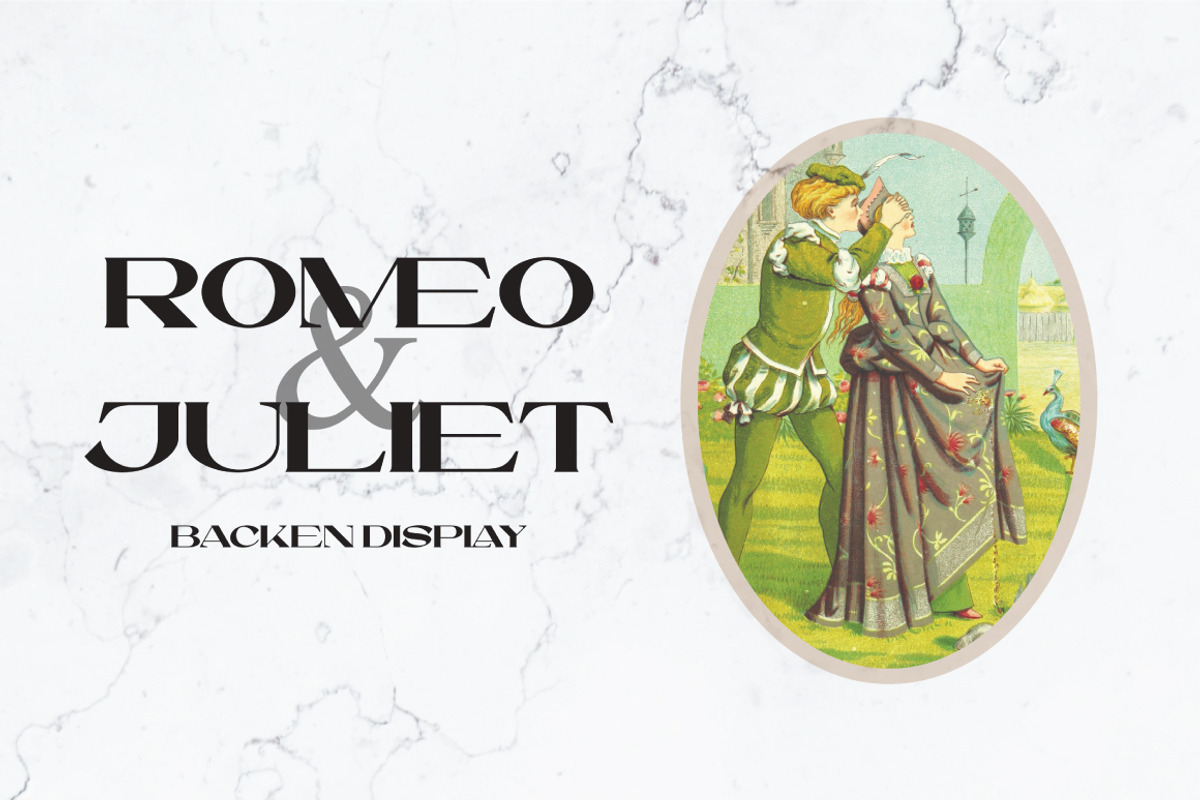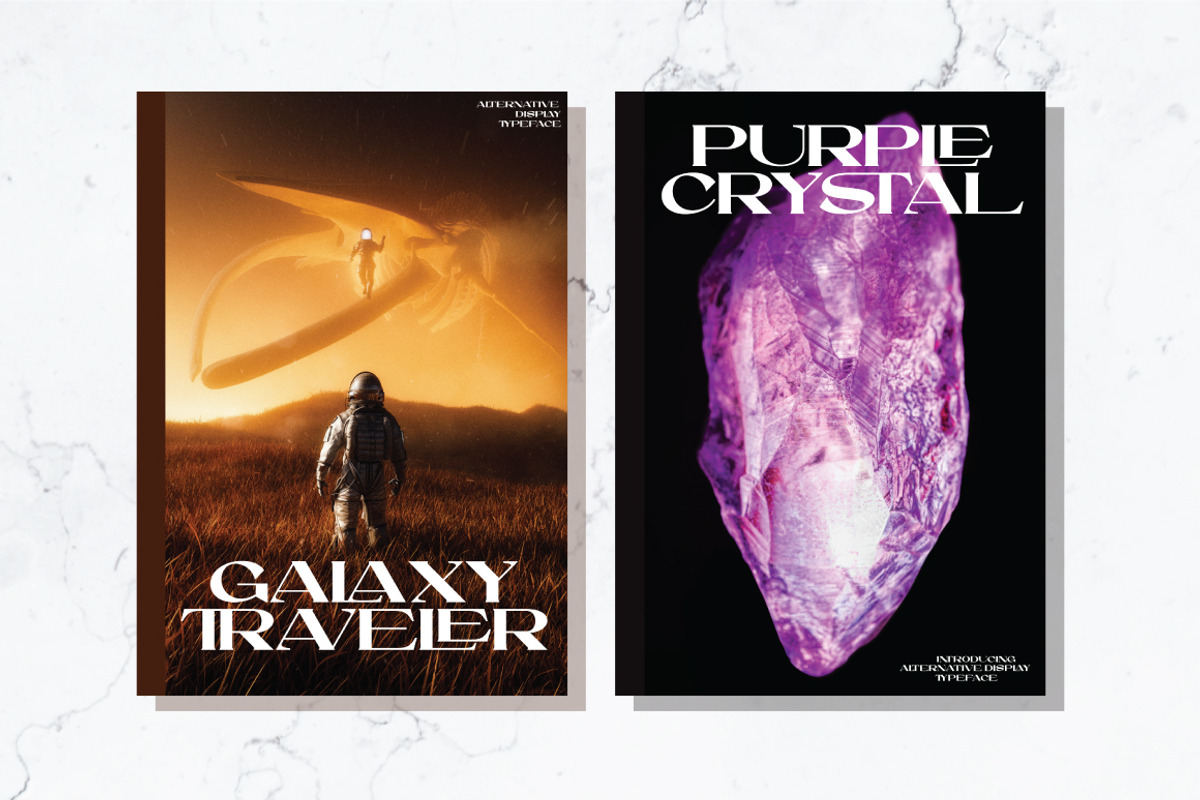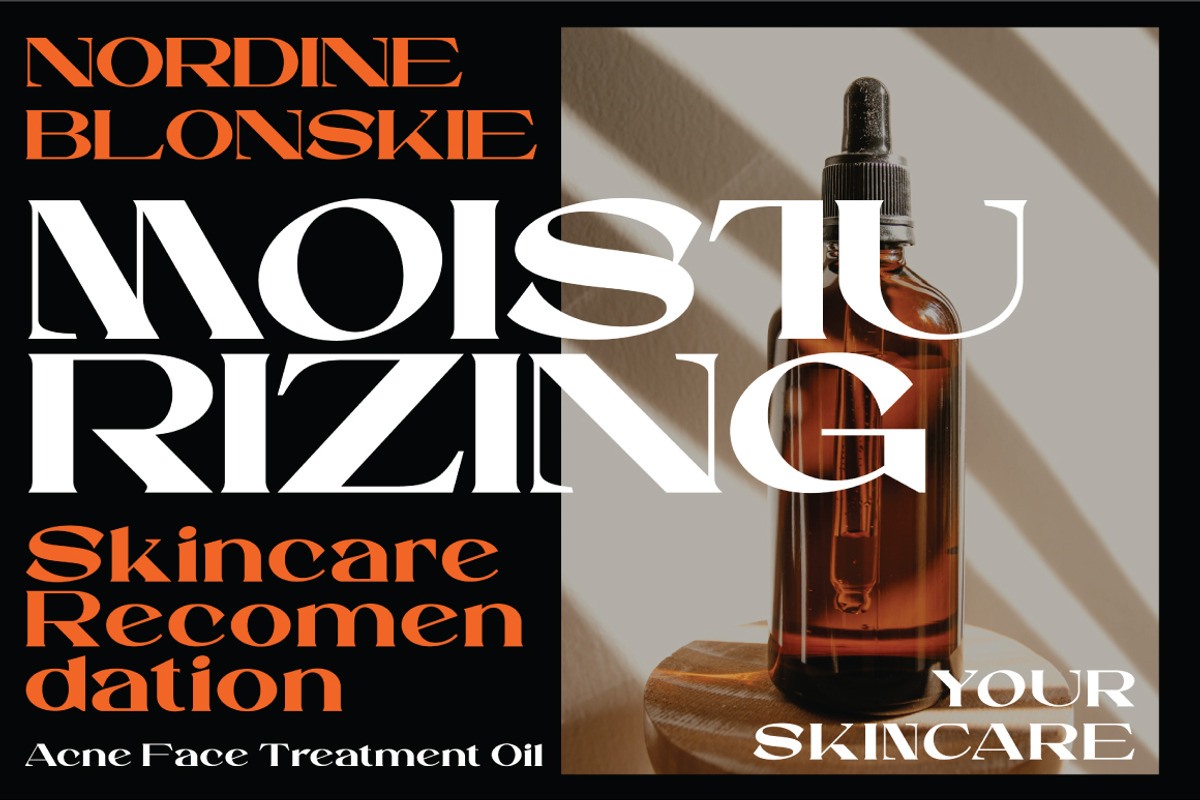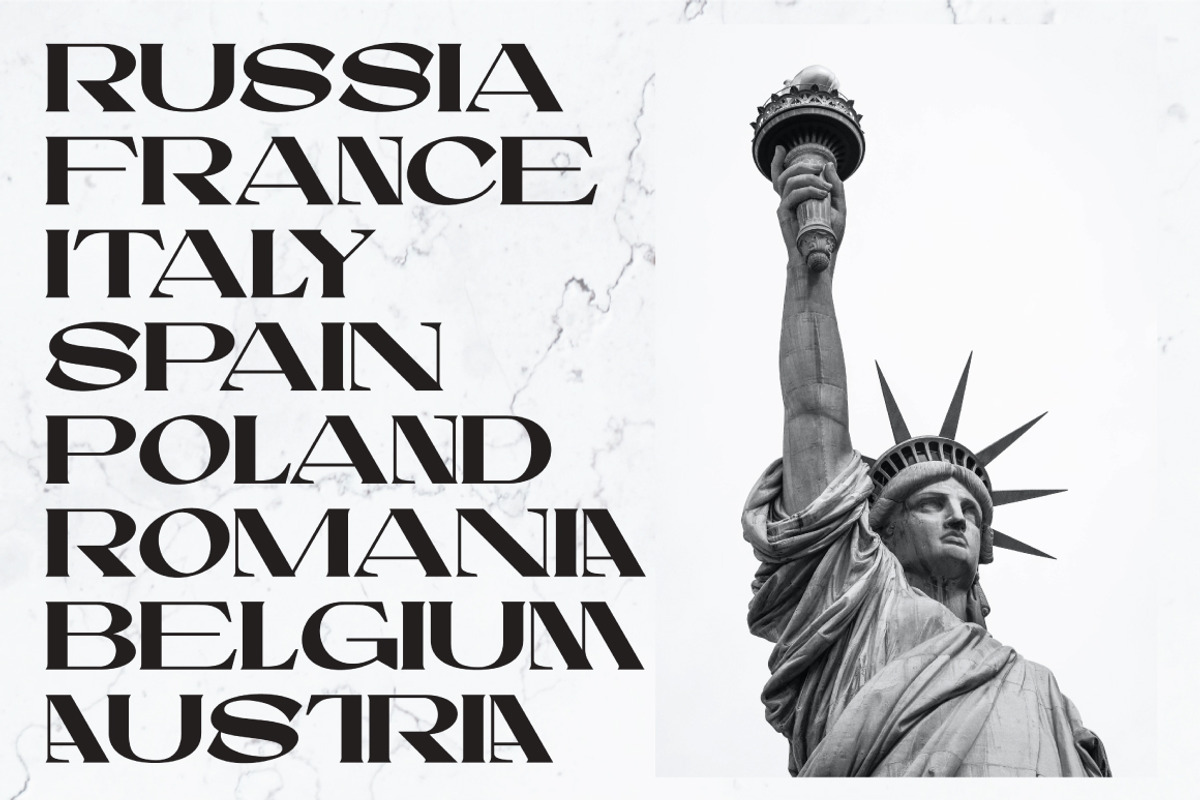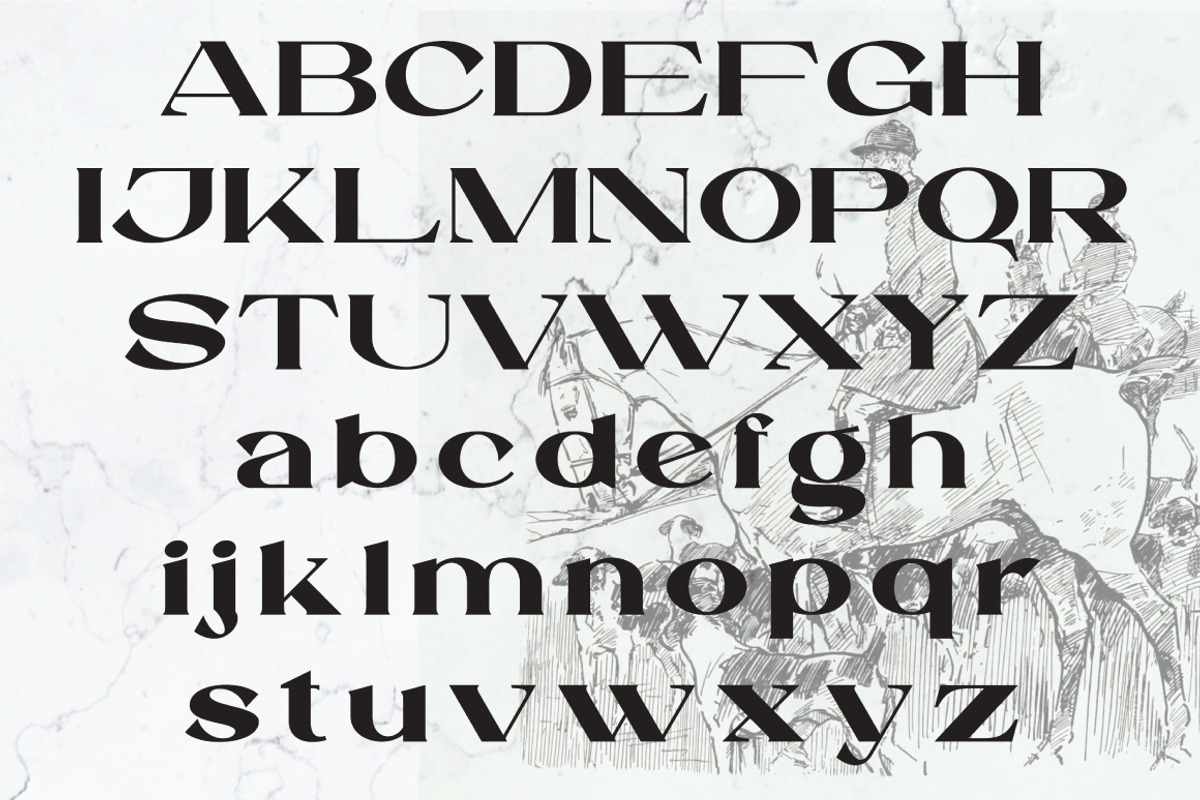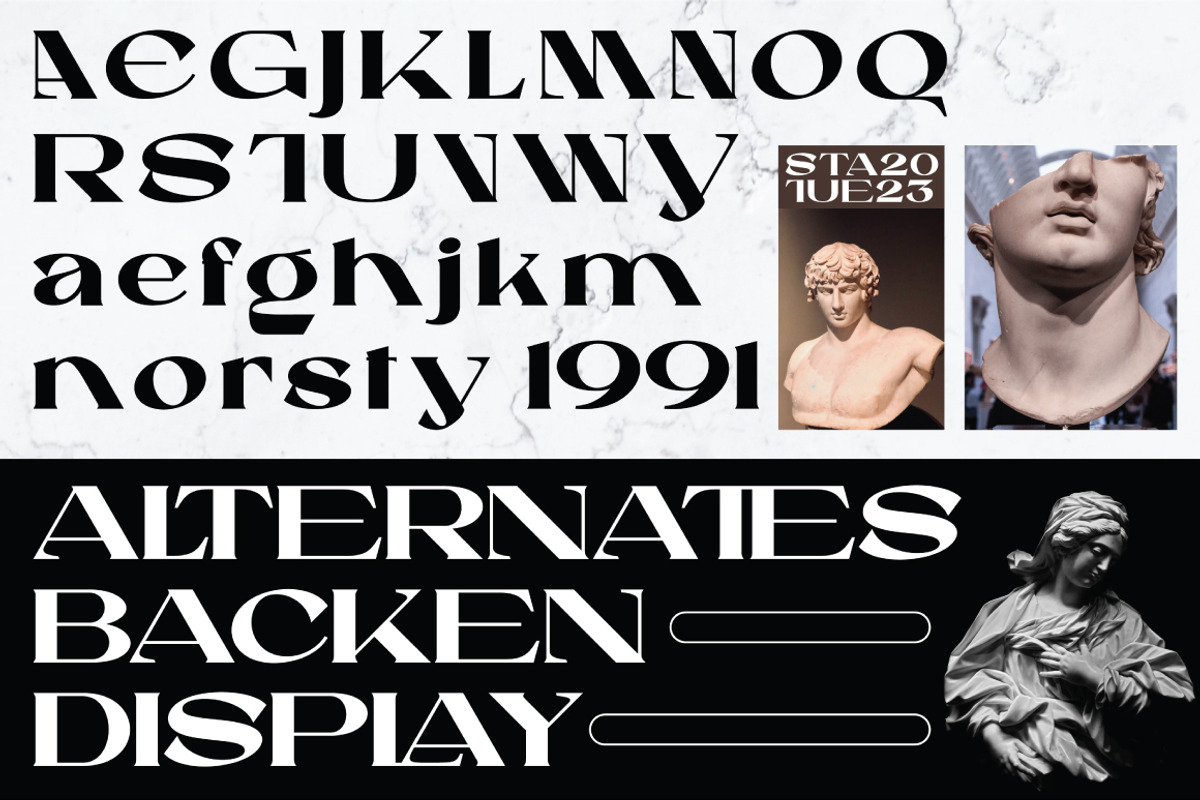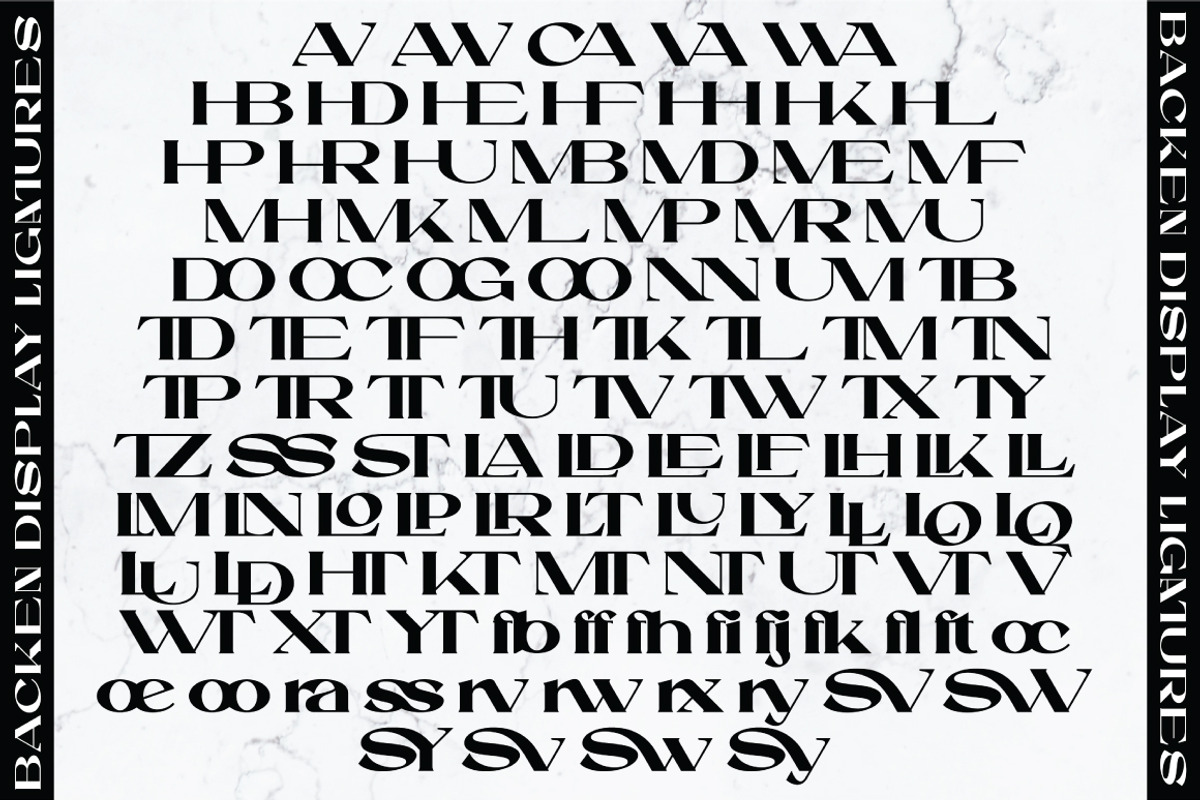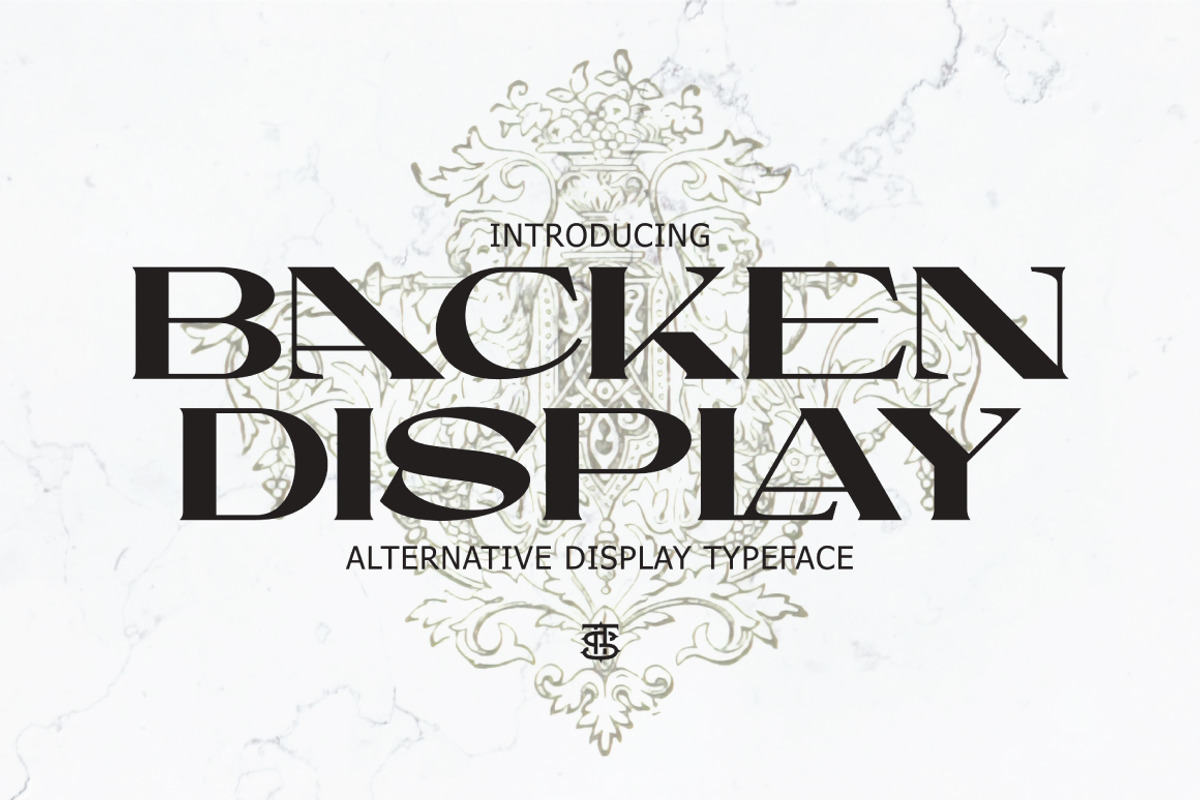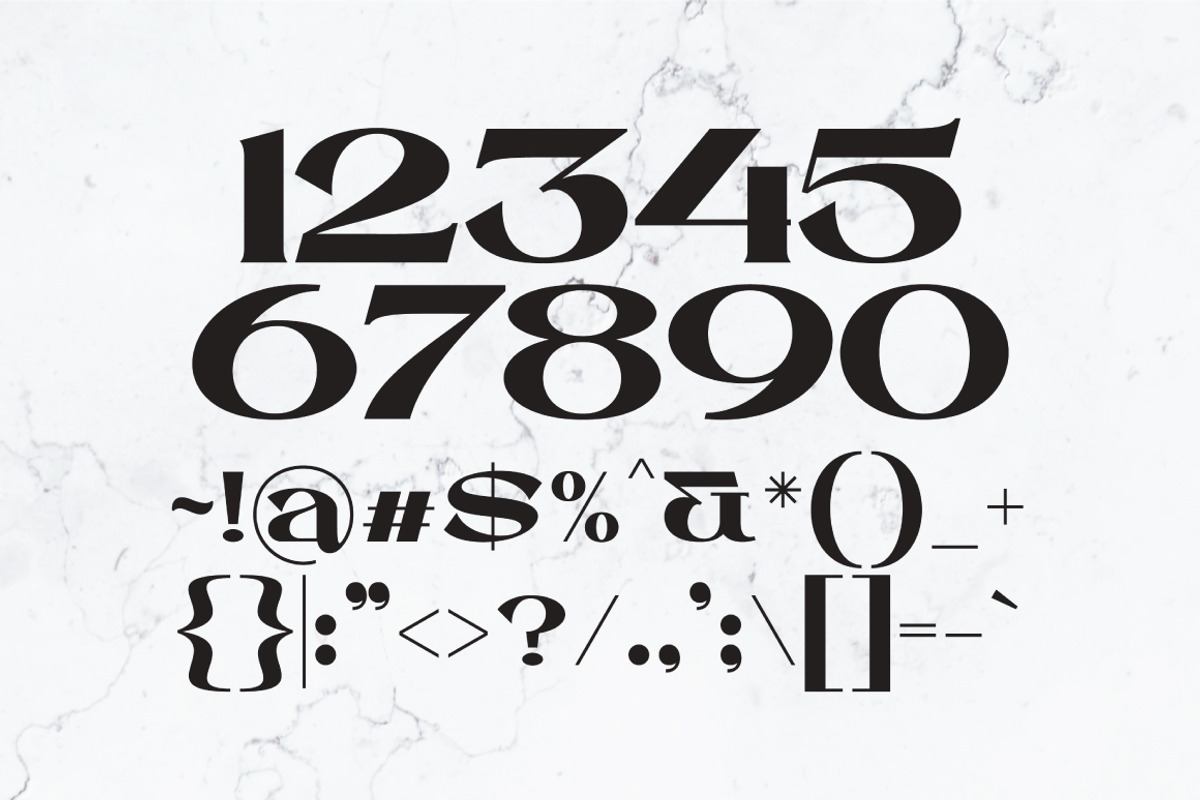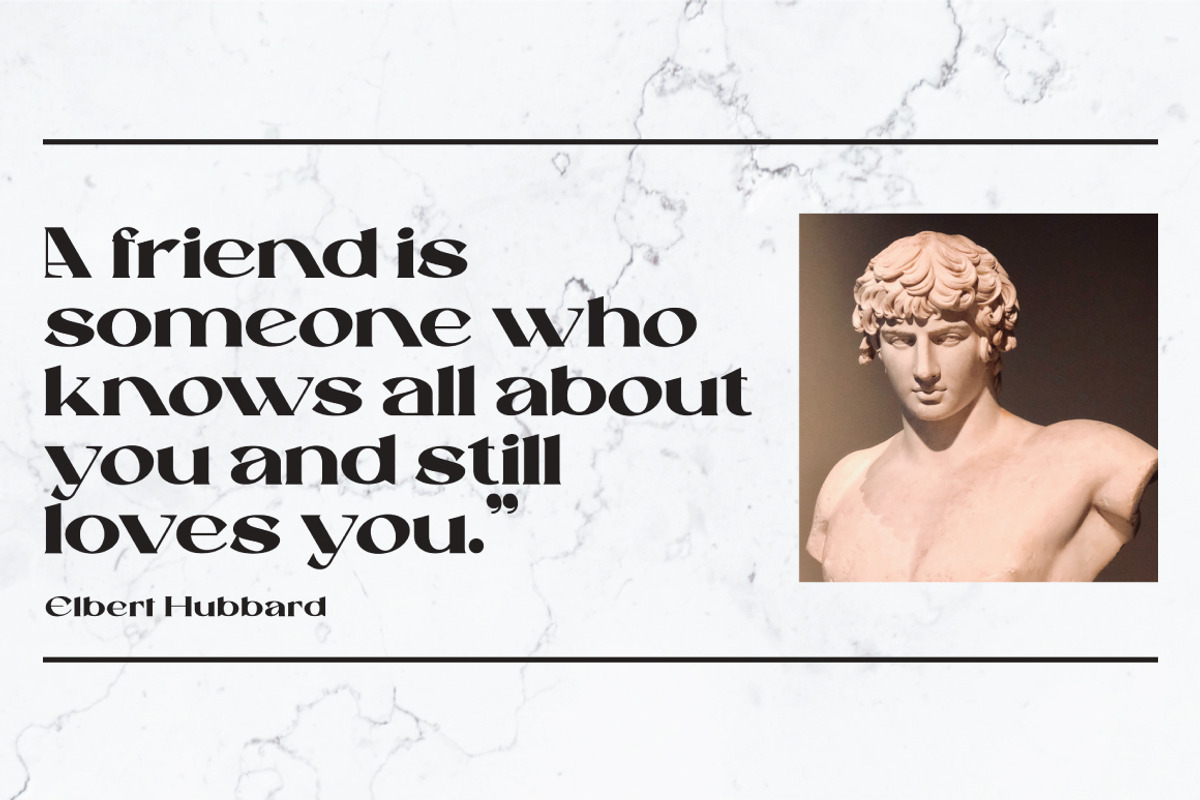
Backen - Bold Serif
Backen a new fresh & modern serif with a strong style, a dancing baseline! So beautiful on invitation like greeting cards, branding materials, business cards, quotes, posters, and more!
Backen Display Typeface is the part of a strong and modern Bold display. This typeface both impressive at display sizes and easily readable in text size, while the sharp shapes of the triangular serif and the distinctive letter shapes show their strength in logo design and impressive editorial use.
- Unique Letterforms